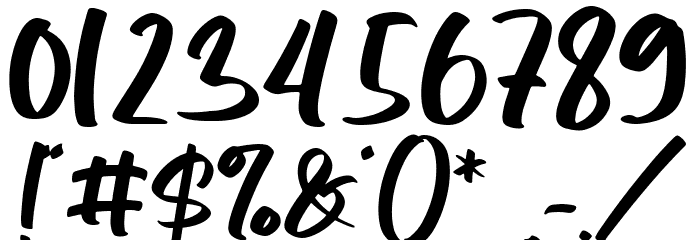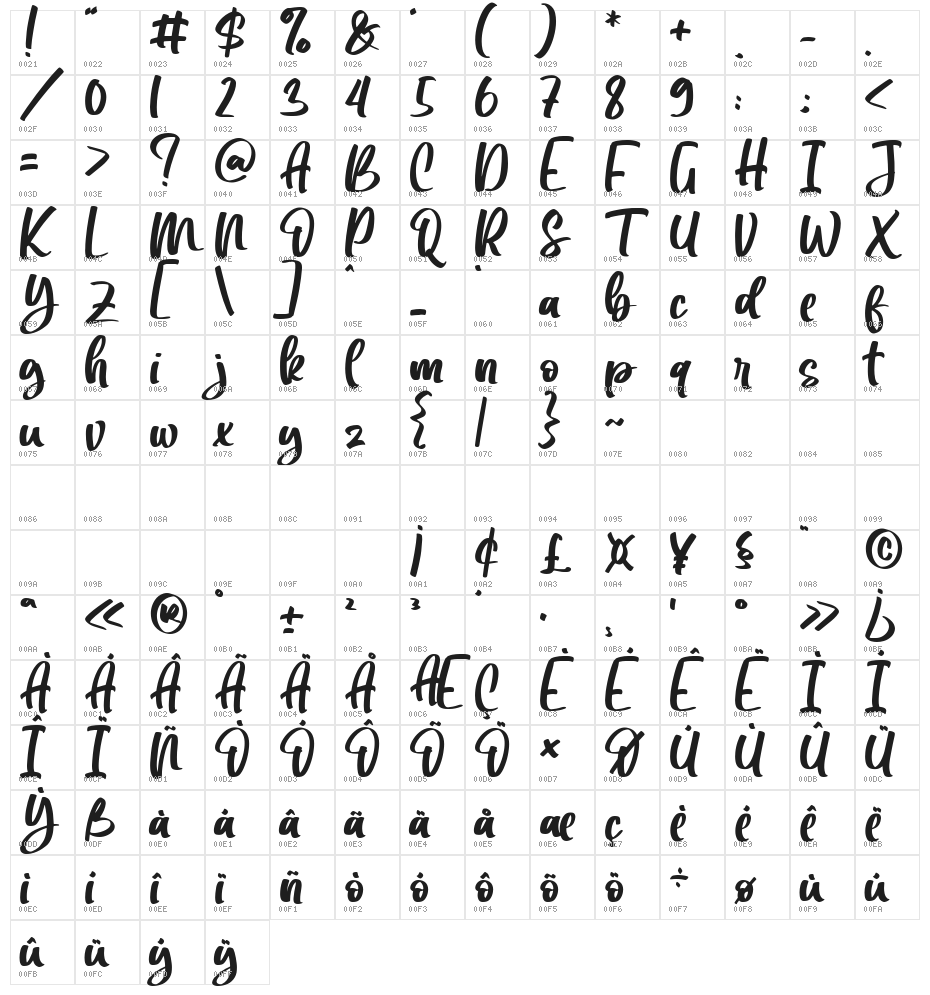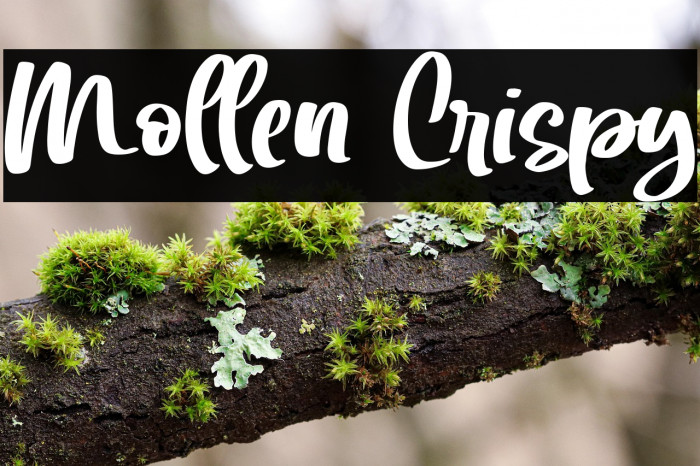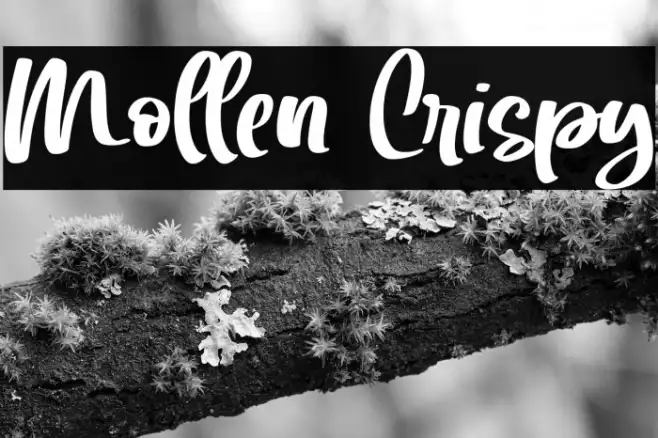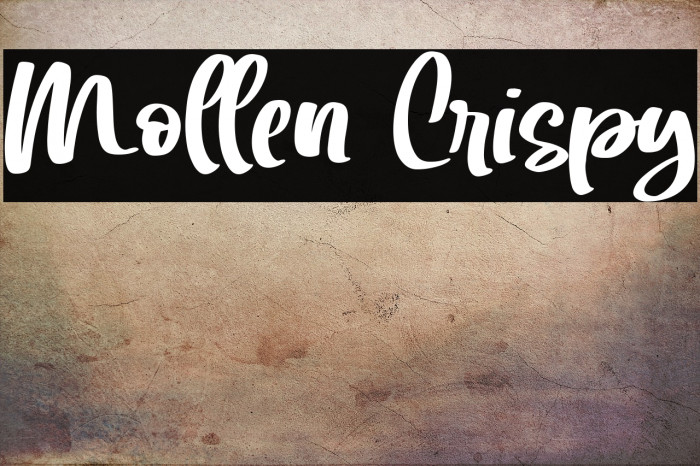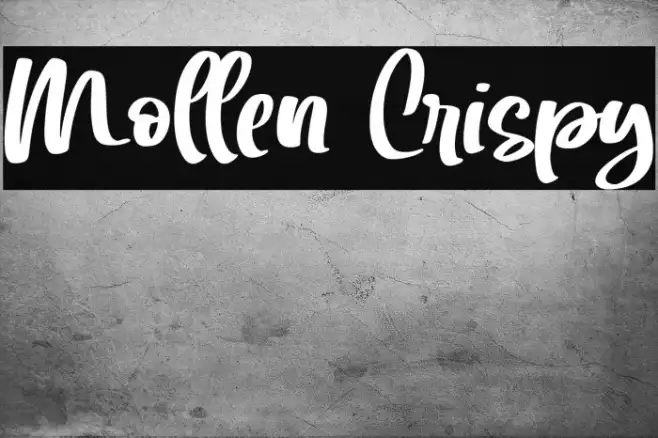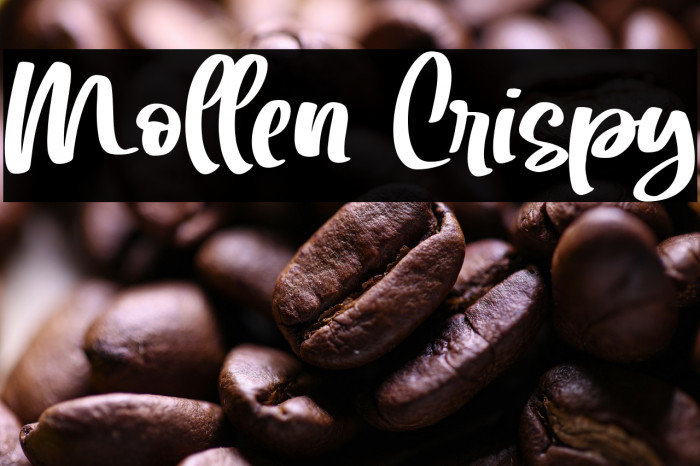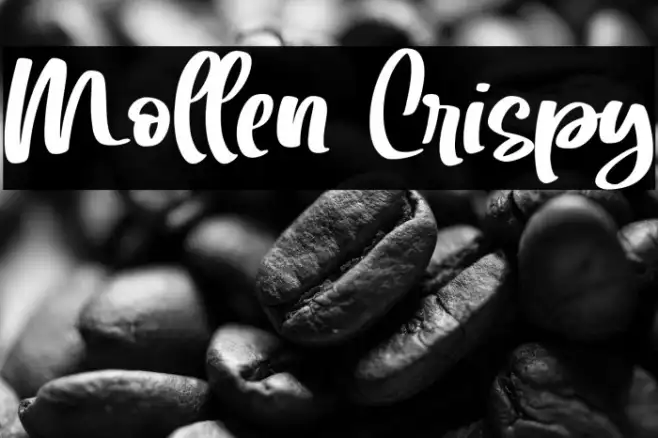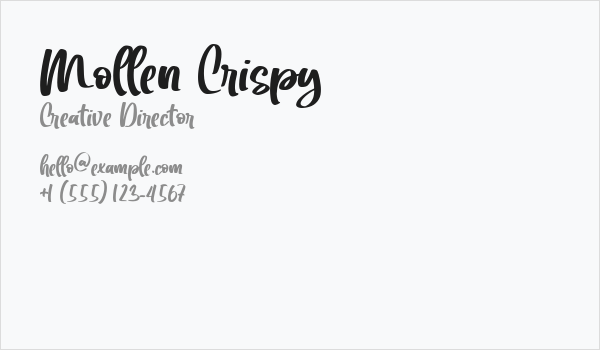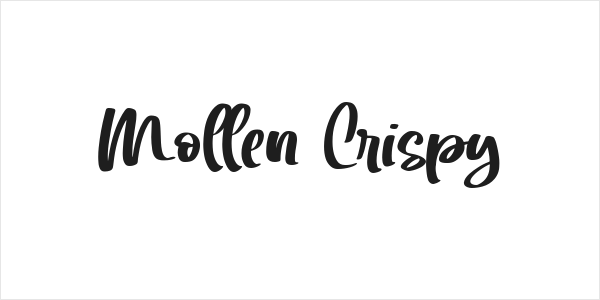
Mollen Crispy Font
Mollen Crispy Description
This font features a bold and expressive handwritten style, characterized by its fluid and dynamic strokes. The letters are crafted with a sense of movement, giving them a lively and energetic appearance. The uppercase and lowercase letters maintain a consistent flow, with rounded edges and a slightly slanted orientation, enhancing the casual and approachable feel. The numbers and special characters follow the same stylistic approach, ensuring uniformity across all glyphs. This font's playful yet sophisticated design makes it suitable for a variety of creative applications.
Use CaseLogos, Headlines, Creative projects
Proposed ProjectsIdeal for branding, social media graphics, invitations, and creative posters.